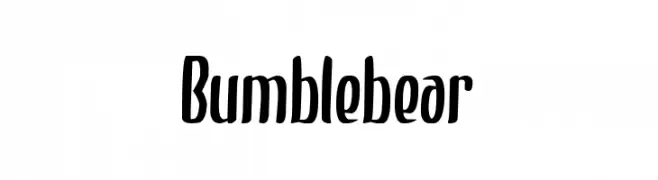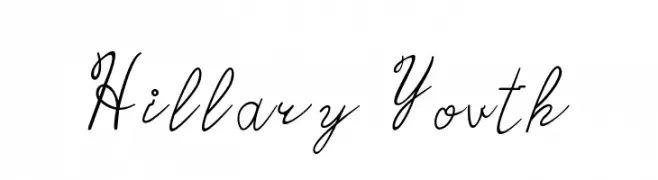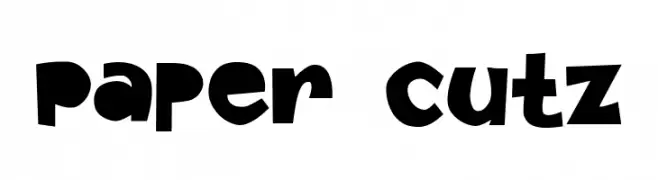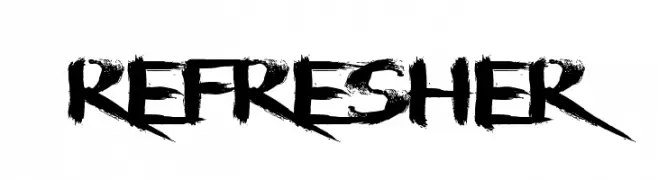
A bold, playful font with dynamic, uneven strokes and a whimsical style.
A playful, bold font with a cut-out paper style, perfect for creative projects.
A playful, bold font with rounded edges and a slightly condensed style.
A bold, geometric font with rounded edges and minimal contrast.
A bold, brushstroke-style font with a dynamic and textured appearance.
A playful, hand-drawn font with bold, rounded characters and a whimsical style.
A graceful script font with flowing, cursive strokes and elegant loops.
A modern, elegant script font with flowing cursive letterforms.